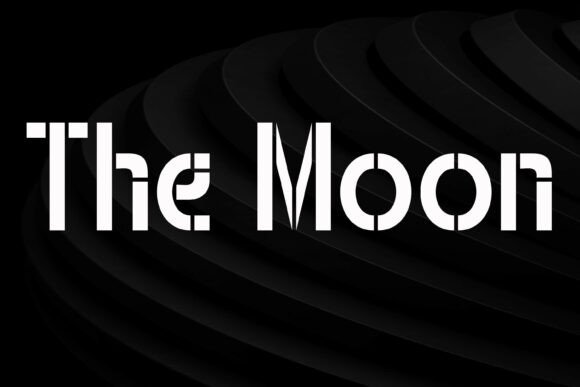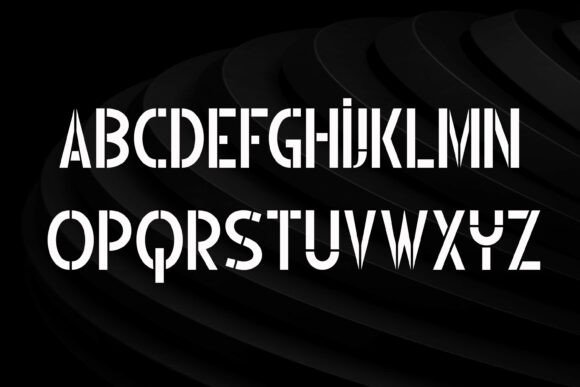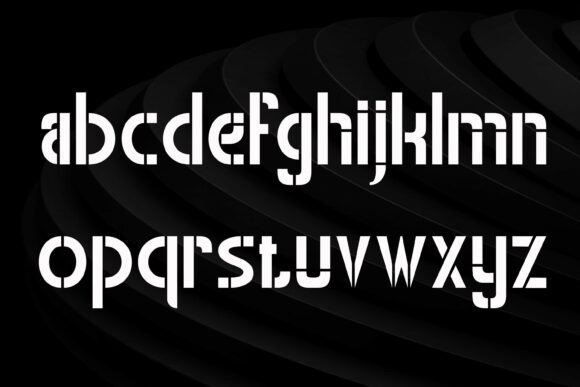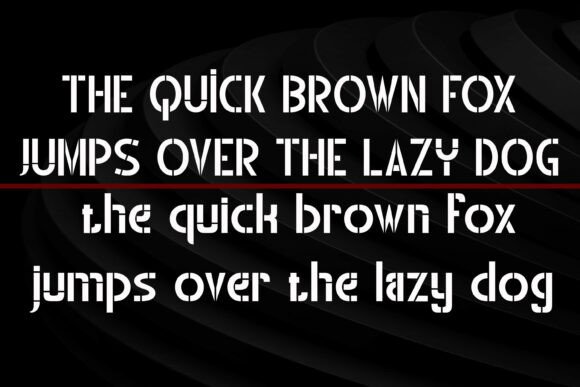
Introducing Anggaru Font: The Perfect Blend of Retro and Modern Minimalism
In the world of typography, fonts play a crucial role in conveying the tone and personality of a design. For designers and crafters looking for a bold and stylish font to make their projects stand out, Anggaru Font is an excellent choice. This condensed sans serif font seamlessly blends retro aesthetics with modern minimalism, making it perfect for a wide range of design applications.
Design Characteristics of Anggaru Font
Anggaru typeface is characterized by its strict proportions, clean lines, and striking curves. The font features uppercase and lowercase characters, ensuring versatility and legibility. The bold and condensed design of Anggaru gives it a unique personality, making it ideal for headlines, titles, and display text.
One of the standout features of Anggaru Font is its ability to add a distinctive touch to any design. The font’s retro aesthetic is balanced by modern minimalist elements, creating a visually appealing contrast that grabs attention. Whether you’re designing a poster, logo, or editorial title, Anggaru Font is sure to make a lasting impression.
Use Cases for Anggaru Font
Anggaru Font is an incredibly versatile typeface that can be used in a variety of design applications. Here are some of the most popular use cases:
• Posters: Anggaru Font is perfect for creating eye-catching posters that demand attention. Its bold and condensed design makes it ideal for headlines and titles.
• Logo Designs: The font’s unique personality and retro aesthetic make it an excellent choice for logo designs. Use Anggaru Font to create a memorable brand identity.
• Editorial Titles: Add a touch of sophistication to your editorial designs with Anggaru Font. Its clean lines and striking curves make it perfect for article titles and headings.
• Album Covers: Music album covers require a font that can convey the tone and personality of the music. Anggaru Font is an excellent choice for creating bold and eye-catching album covers.
• Fashion Branding: The font’s modern minimalist elements make it an excellent choice for fashion branding. Use Anggaru Font to create stylish and sophisticated brand identities.
• Display Titles: Anggaru Font is perfect for display titles, including movie titles, event titles, and exhibition titles. Its bold and condensed design ensures that your titles stand out.
Why Choose Anggaru Font?
With so many fonts available, why choose Anggaru Font? Here are a few reasons why designers and crafters love Anggaru:
• Unique Personality: Anggaru Font has a bold and distinctive personality that sets it apart from other fonts.
• Versatility: The font is incredibly versatile and can be used in a wide range of design applications.
• Legibility: Anggaru Font is designed with legibility in mind, ensuring that your text is easy to read.
• Retro Aesthetic: The font’s retro aesthetic adds a touch of nostalgia and sophistication to any design.
Font Name Anggaru Font
Author Canden Meutuah
Anggaru Font is an exceptional typeface that blends retro aesthetics with modern minimalism. Its bold and stylish design makes it perfect for designers and crafters looking to add a distinctive touch to their projects. With its versatility, legibility, and unique personality, Anggaru Font is an excellent choice for a wide range of design applications. Whether you’re designing a poster, logo, or editorial title, Anggaru Font is sure to make a lasting impression.